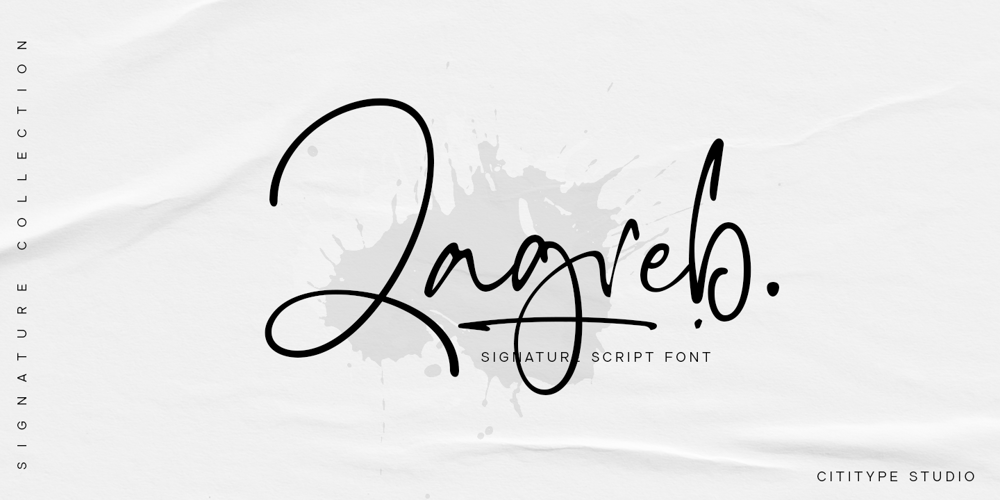
Zagreb Font Family was designed by Muhammad Ridha Agusni, Siti Saribanon Nurjannah and published by Cititype. Zagreb contains 2 styles and family package options. Zagreb is a natural script font. We make this font for all types of product brands and logos. A natural touch in a soft but sometimes a little wild strain.modern and elegant look for masculine and feminine brands.We added several OpenType features such as ligature, titling alternate and swash alternate to enrich your design. After that we added one swash line font, this font consists of 26 underlines which we provide for free.this is a great type for dynamics, modern, metropolis dan sophisticated brandthanks